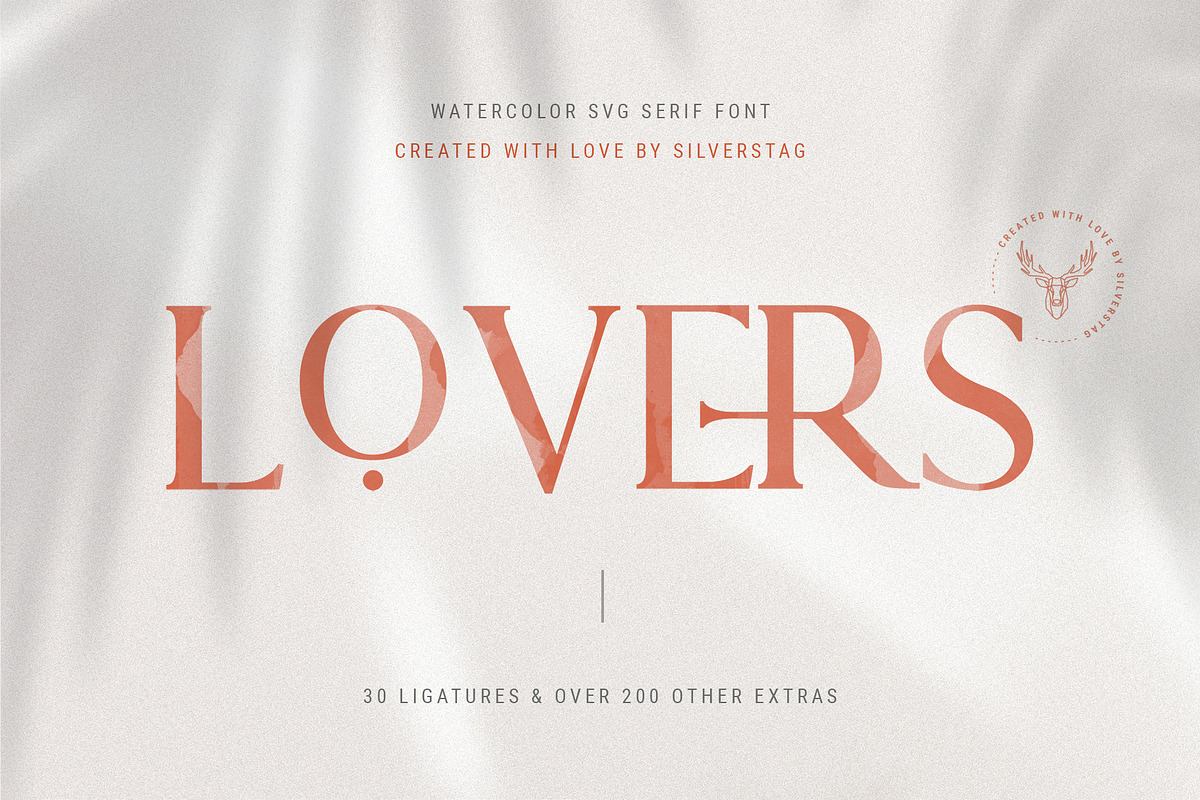
The Lovers SVG Serif Font & Extras Free Download brings a touch of romance and elegance to your designs. This stunning font features a unique serif style enhanced with decorative extras, making it ideal for creating eye-catching logos, invitations, and social media posts. With its beautiful curves and bold presence, this font family is perfect for both print and digital designs. Please note, to use this font for commercial purposes, a license purchase is required. However, you can download the Lovers SVG Serif Font & Extras Free Download for free and experiment with its versatility for personal projects. Whether you're designing for weddings, branding, or any creative venture, this font will add a special, artistic flair to your work. Download the Lovers SVG Serif Font & Extras Free Download now and elevate your typography with a modern, sophisticated touch.